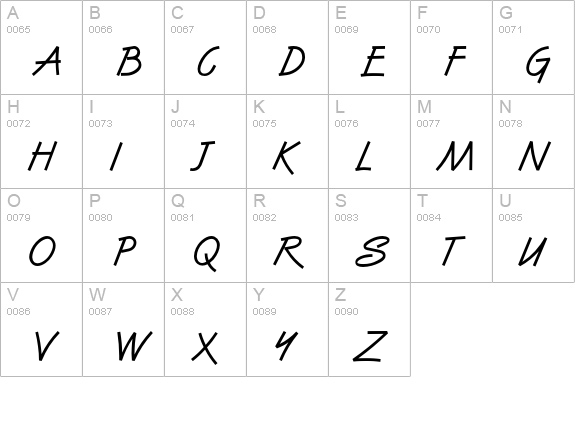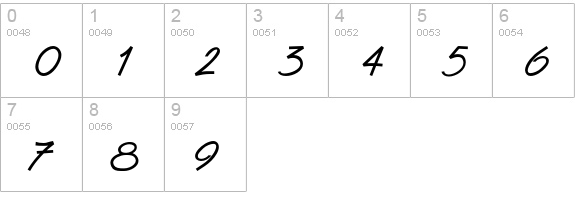
Van Dijk Font Details
Van Dijk font is a stunning typeface that exudes elegance and sophistication. It is a versatile font that can be used for a wide range of design projects, from branding and packaging to editorial and website design. This font features clean lines and a modern, yet timeless aesthetic. Its sleek and stylish look makes it perfect for creating professional and visually appealing designs. Whether you are designing a logo for a high-end fashion brand or crafting a sleek and modern website, Van Dijk font is sure to elevate your design. One of the best things about Van Dijk font is that it is available for free. Yes, you read that right! This incredible font can be downloaded for free at FontsMarket.com. Now, you can enhance your designs without worrying about breaking the bank. With Van Dijk font, you have access to a wide range of glyphs and characters, allowing you to create unique and personalized designs. Its wide variety of weights and styles give you the flexibility to experiment and find the perfect fit for your project. Whether you are a professional designer or just starting out, Van Dijk font is a must-have in your collection. Its sleek and sophisticated design, combined with its availability as a free download, makes it an invaluable asset for any designer. So why wait? Head over to FontsMarket.com and download Van Dijk font today. Elevate your designs and make a lasting impression with this stunning, free font.